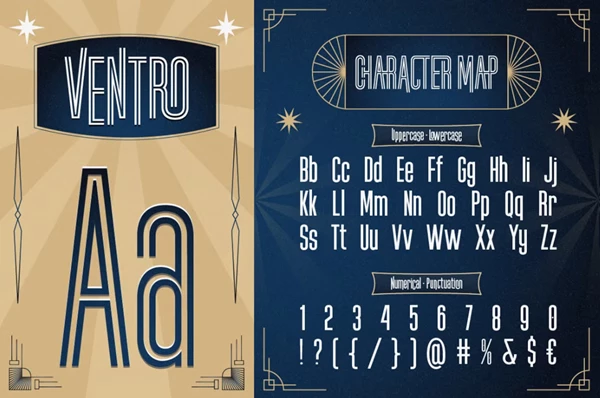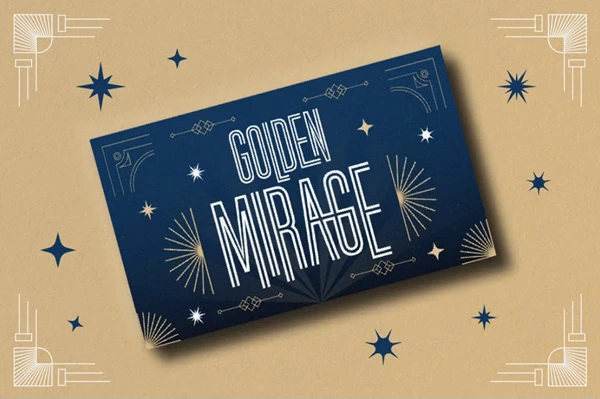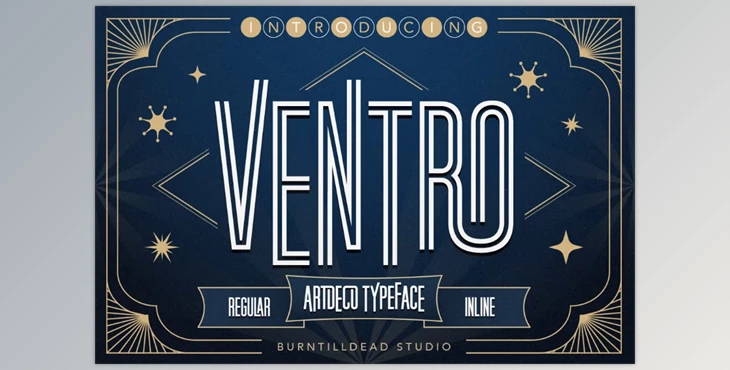
Ventro Art Deco Font:
Ventro is a stunning Art Deco font family that possesses a luxurious 1920s feel while maintaining a clean and modern finish. This download includes Regular and Inline fonts and is perfect for anyone wanting to display a high-end bold impression. Excellent for vintage film project titles, cafe logos, art deco events, and retro style posters or science fiction projects. Ventro will stand out in any design!
Some great features of Ventro Art Deco Font:
- Full set of both upper and lower case letters A-Z
- Has a set of digits
- Full set of digits
- Full set of punctuation marks
- Punctuation set also has alternates for flexibility
- Has ligatures for seamless text, additive and flowing contractions
- Supports a plethora of languages
- Contains a Ventro Characters Map